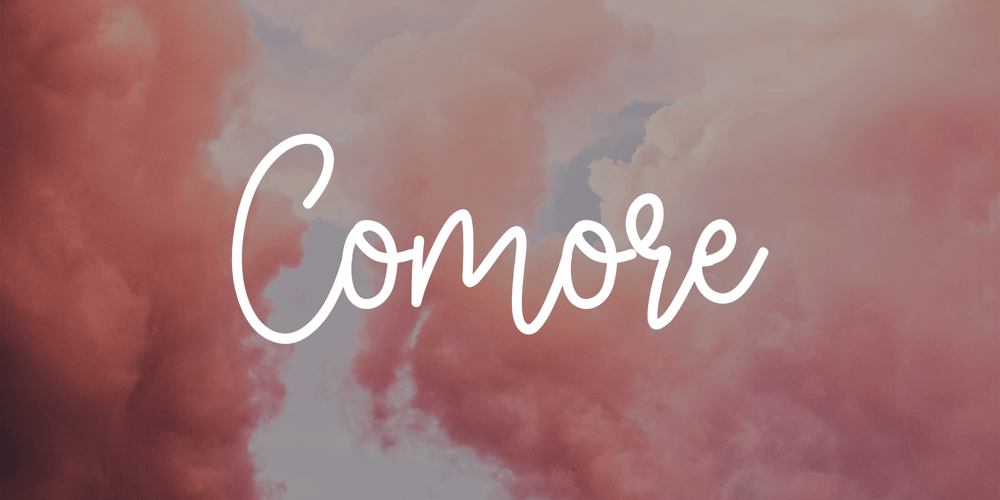
Comore Font Family was designed by Roberta Stanić and published by Roberta Fonts. Comore contains 1 styles and family package options. Introducing Comore, my first script font inspired by the Japanese word “komore,” meaning cloud shadows. Comore is a fancy, elegant font perfect for writing names, short sentences, and creating distinctive logotypes. Its graceful curves and sophisticated style make it ideal for adding a touch of refinement to any design project.